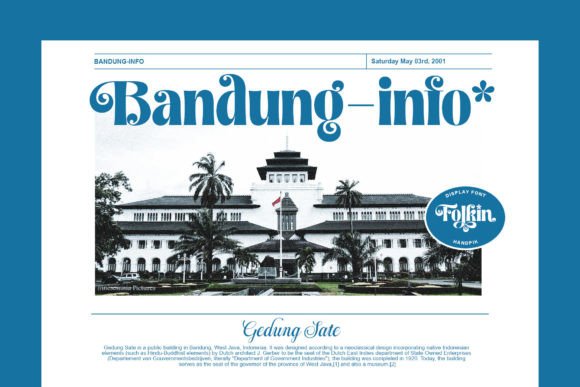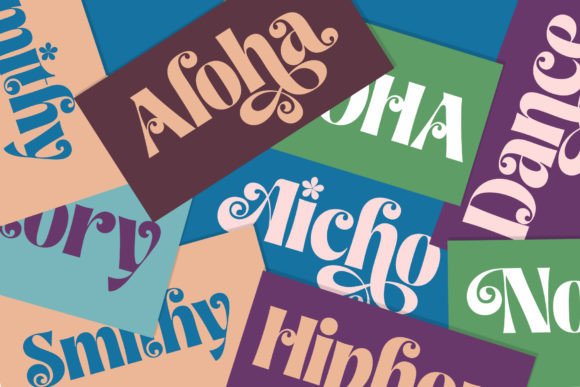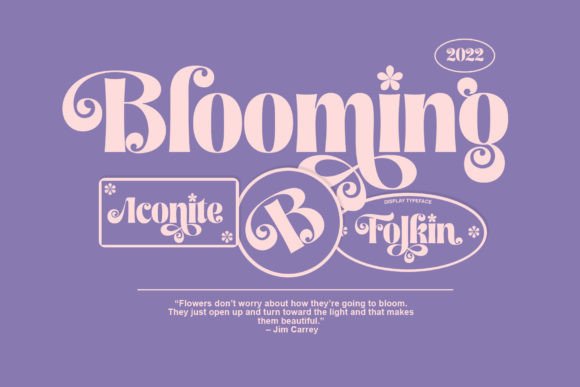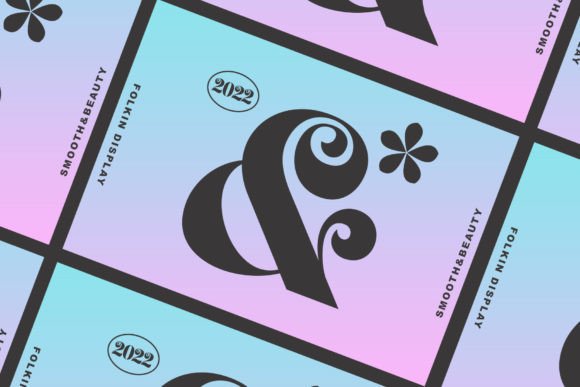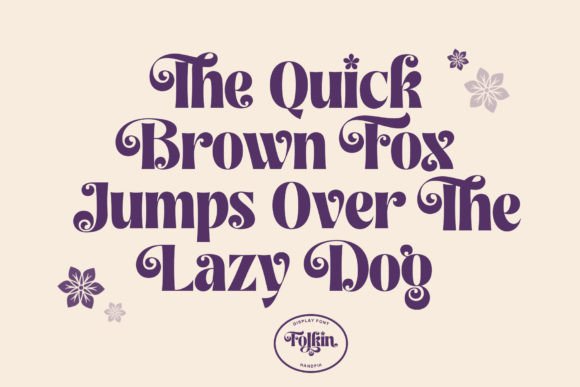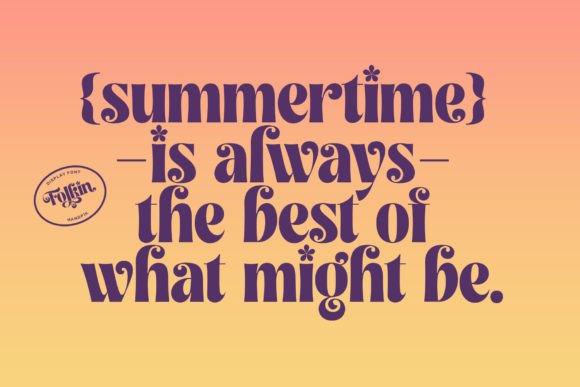
The Quest for the Perfect Font: How Folkin Became My New Go-To
I’ll never forget the frustration of working on a project, hours pouring into every detail, only to get stuck on one thing: the font. It was for a client’s wedding invitation, and I needed something that exuded elegance, sophistication, and a touch of femininity. I scoured font websites, tried countless combinations, but nothing seemed quite right. That was until I stumbled upon Folkin, a serif display font that has since become my new favorite.
First Impressions: A Love Affair with Folkin
Folkin is a masterclass in classic, feminine design. Its elegant lines, beautiful proportions, and exquisite details make it perfect for projects where you want to make a statement. Here are just a few things I love about Folkin:
- ✨ Elegant and refined, perfect for high-end branding, wedding stationery, or luxury packaging
- ✅ Highly legible, even at smaller sizes
- 💫 Beautifully crafted with attention to detail, giving it a premium feel
- 📚 Versatile and adaptable, suitable for a wide range of creative projects
The Honest Review: No Perfect Font, But…
While Folkin has won my heart, it’s not without its quirks. Here are a few things to consider:
- 🤔 Limited use in very casual or playful contexts, as it leans more towards formal and elegant
- ⚠️ Some users may find the font too ornate or dense for body text, best used for headlines or display purposes
One of the standout features of Folkin is its support for OpenType features. This includes access to:
- Ligatures for a more elegant text appearance
- Stylistic alternates for varied typography
- Glyphs for adding decorative elements to your text
The Story Behind Folkin: A Designer’s Inspiration
While the actual origins of Folkin are shrouded in mystery, it’s easy to imagine a designer pouring their heart into creating a font that embodies timeless elegance. Picture a quiet studio, filled with vintage typefaces and classic novels. The designer, fueled by passion and a vision for the perfect font, meticulously crafts each letterform. The result is Folkin: a testament to the power of typography in elevating our creative projects.
- Q: What type of projects is Folkin best suited for?
- A: Folkin excels in projects requiring a touch of elegance and sophistication, such as wedding stationery, luxury branding, and high-end packaging.
- Q: Does Folkin support OpenType features?
- A: Yes, Folkin supports OpenType features, including ligatures, stylistic alternates, and glyphs.
- Q: Is Folkin suitable for body text?
- A: While Folkin is highly legible, it’s best used for headlines or display purposes due to its ornate nature.